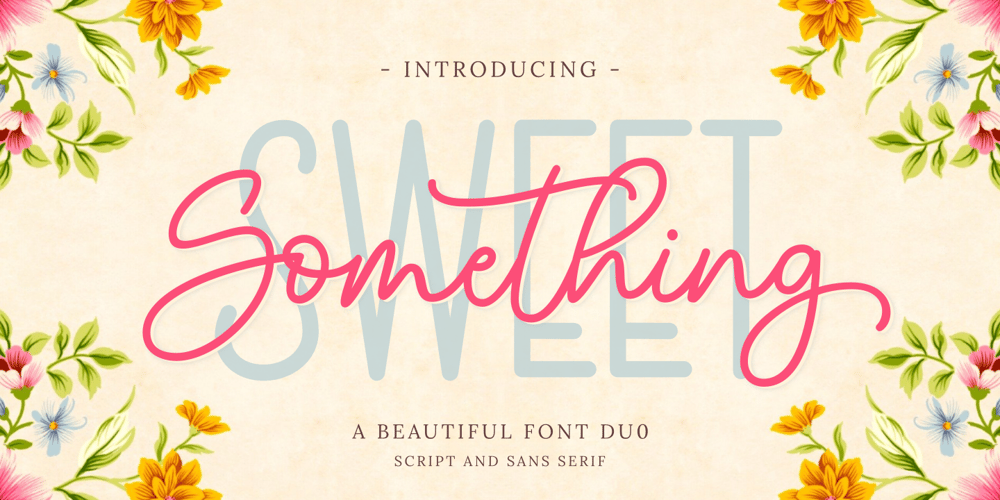
Something Sweet Duo Font Family was designed by Hasan Udin and published by Ghuroba Studio. Something Sweet Duo contains 2 styles and family package options. Something Sweet is a beautiful and modern duo font. It combines a cute script with a great sans serif. Combining these two fonts on your next design will give a versatile and outstanding feel. This font is PUA encoded which means you can access all of the cute glyphs and swashes with ease! It also features a wealth of special features including alternate glyphs and ligatures.